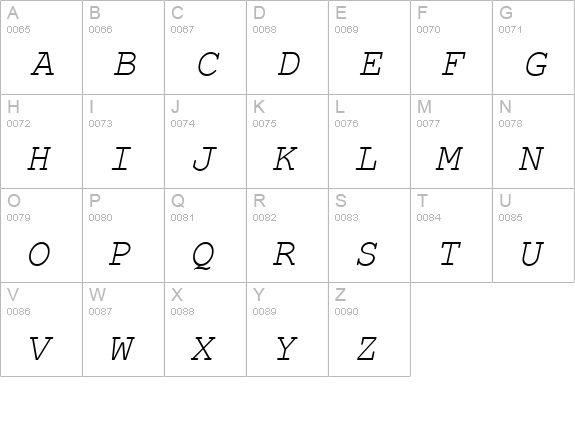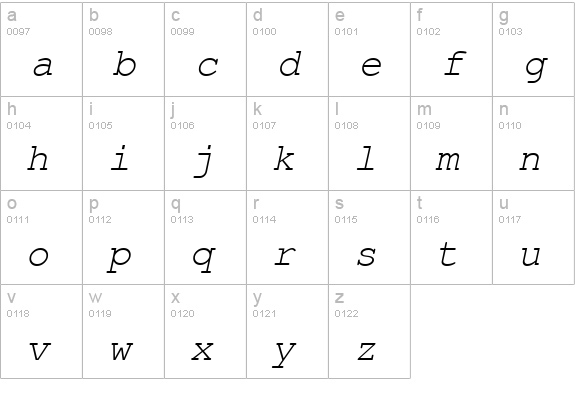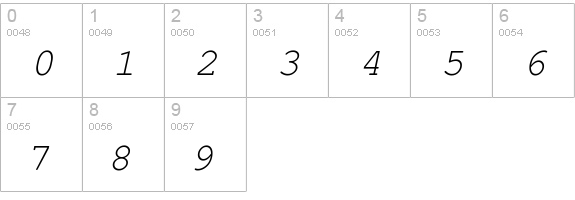
Courier-PS-Italic is a distinctive, italic variant in the Courier typeface family \xE2\x80\x94 well suited to design and typography projects.
Courier-PS-Italic is a classic and elegant font style that exudes sophistication and professionalism. With its slanted italic design, this font adds a touch of flair to any text or design project. The sleek and clean lines of Courier-PS-Italic make it perfect for conveying a sense of formality and authority. Best of all, Courier-PS-Italic is available for free download at FontsMarket.com. This means that you can easily access this stylish font and incorporate it into your work without any cost. Whether you are creating documents, presentations, or graphic designs, Courier-PS-Italic is a versatile font choice that will elevate the look of your projects. Download it now and add a touch of elegance to your typography!